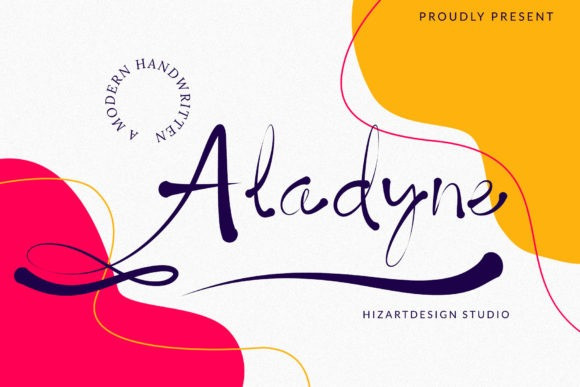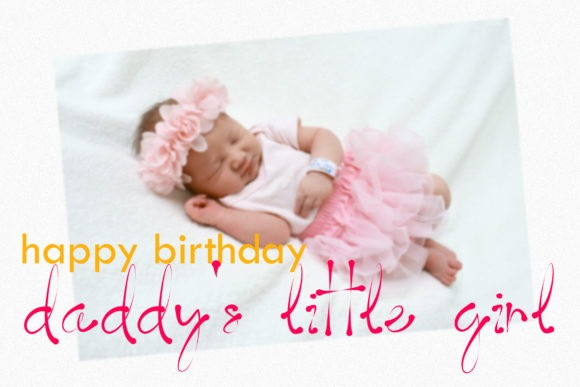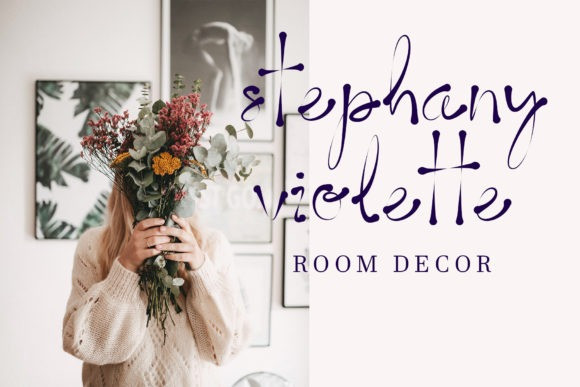
Aladyne Font
Aladyne is a beautiful and delicate handwritten font. Whether you’re looking for fonts for Instagram or calligraphy scripts for DIY projects, this font will turn any creative idea into a true piece of art!